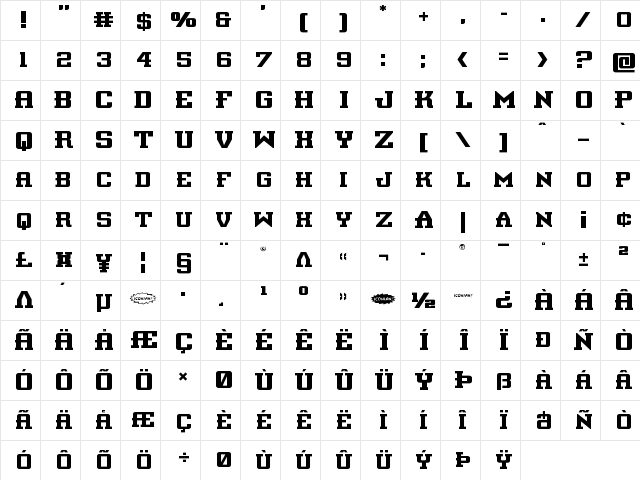
Interceptor Title Regular
Design Context for Interceptor Title Typeface
Interceptor Title is a composed and adaptable typeface that performs quietly and consistently across a wide range of design contexts.